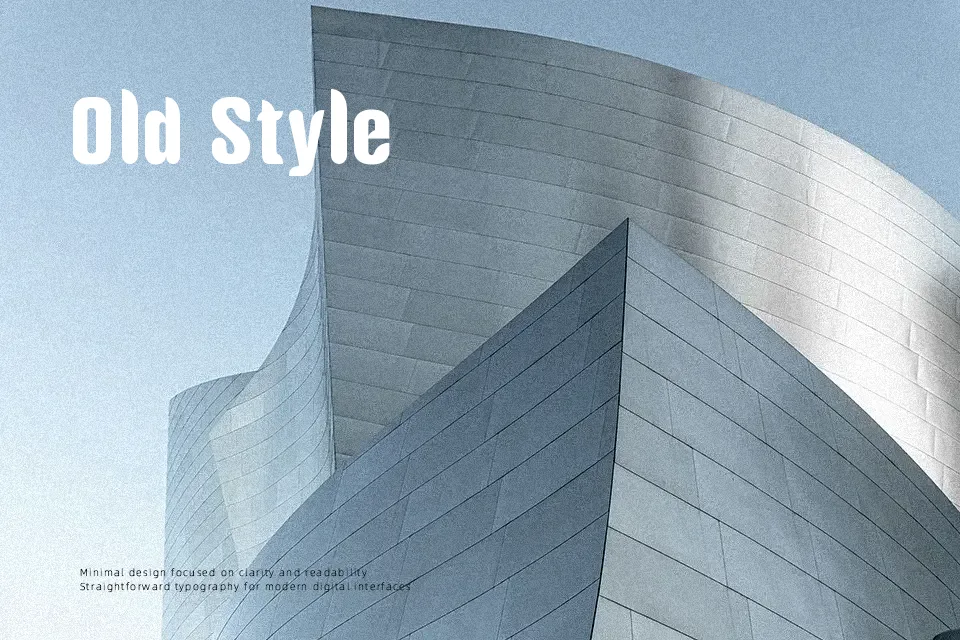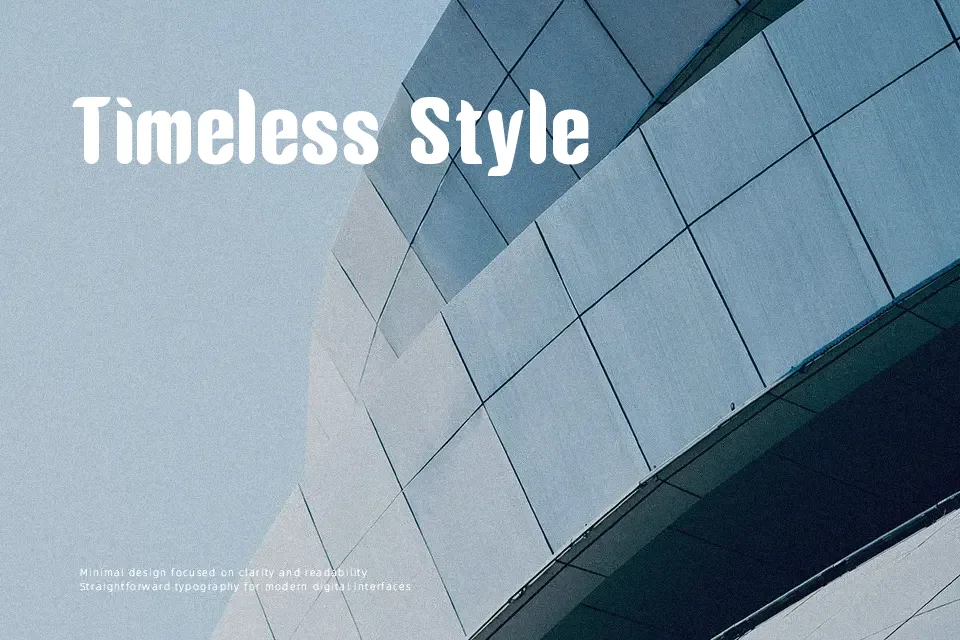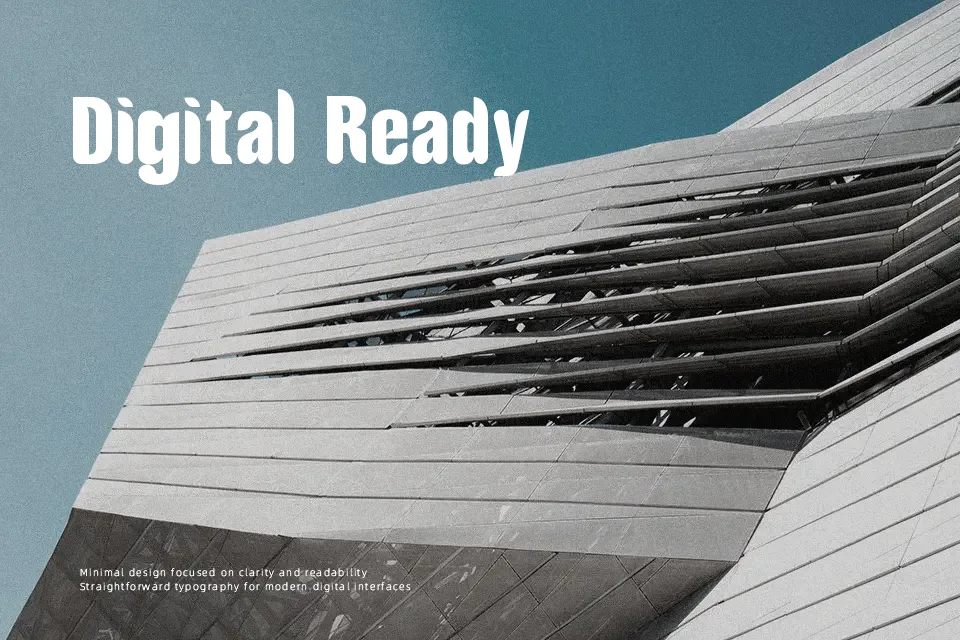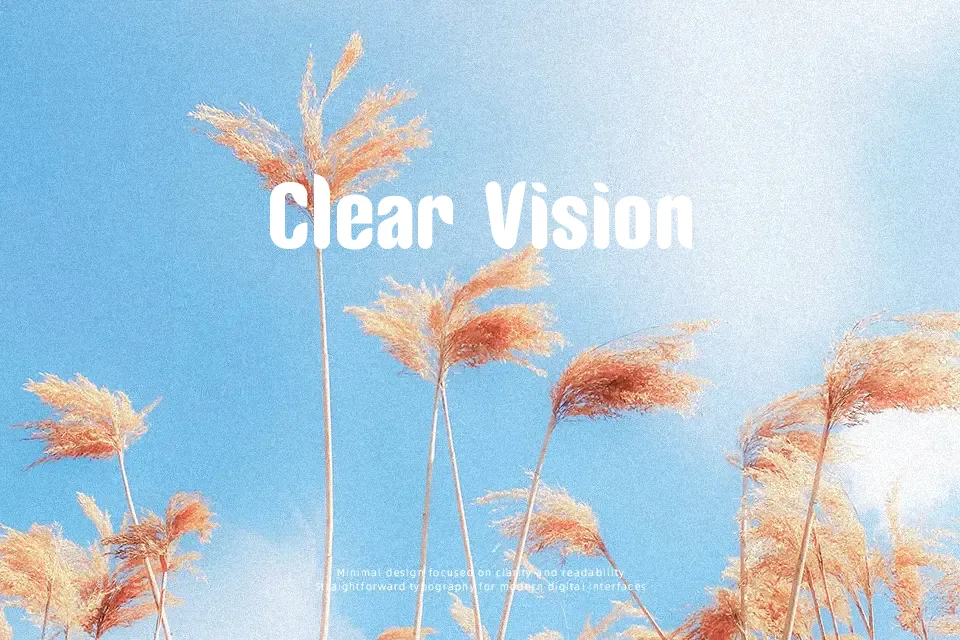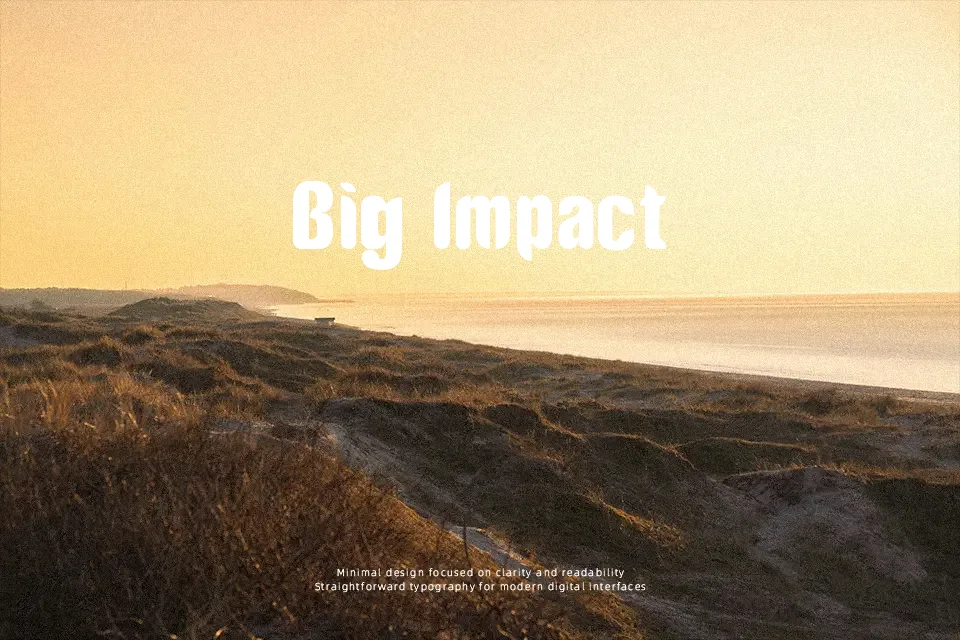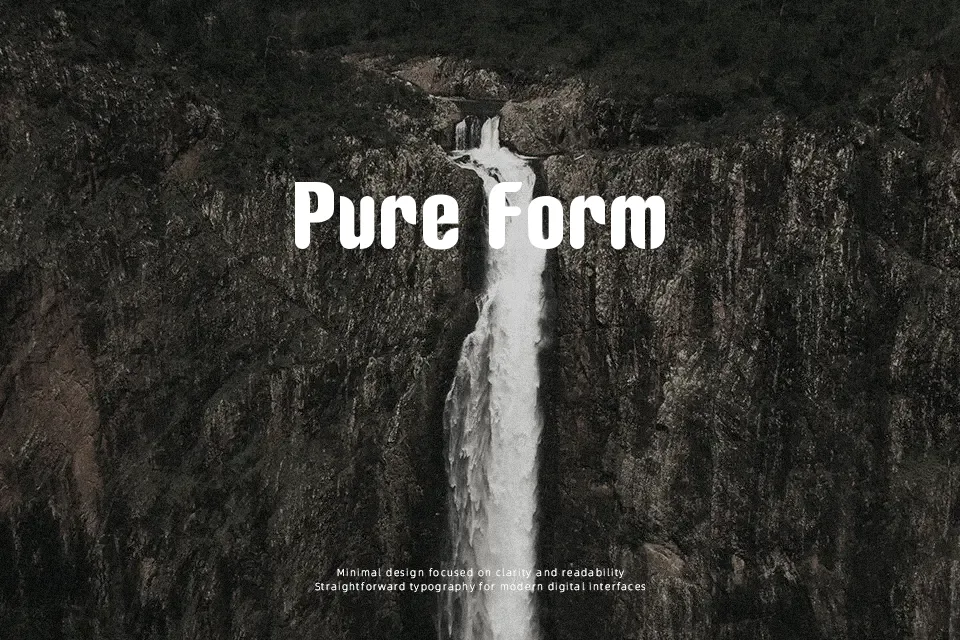
Riotun Font
Riotun Font features heavy, unconventional strokes that immediately establish a strong visual presence. The character proportions lean towards a bold, slightly condensed structure, allowing the letterforms to pack tightly together while maintaining an organic rhythm. Its rugged outlines and uneven spacing create a raw, energetic aesthetic that works beautifully for large-scale applications. The dense forms reduce comfort during extended reading, making this typeface less suitable for long paragraphs or body copy. However, the thick structure ensures excellent visibility in short, impactful headlines. This design performs best when displayed at larger sizes, where its unique structural imperfections become a deliberate stylistic asset rather than a distraction.
music festival posters, edgy apparel graphics, bold event branding, stylized headline banners
long paragraph text, small interface labels, dense editorial layouts
Perfect for advertising, branding, and headline, with a artistic and decorative style.